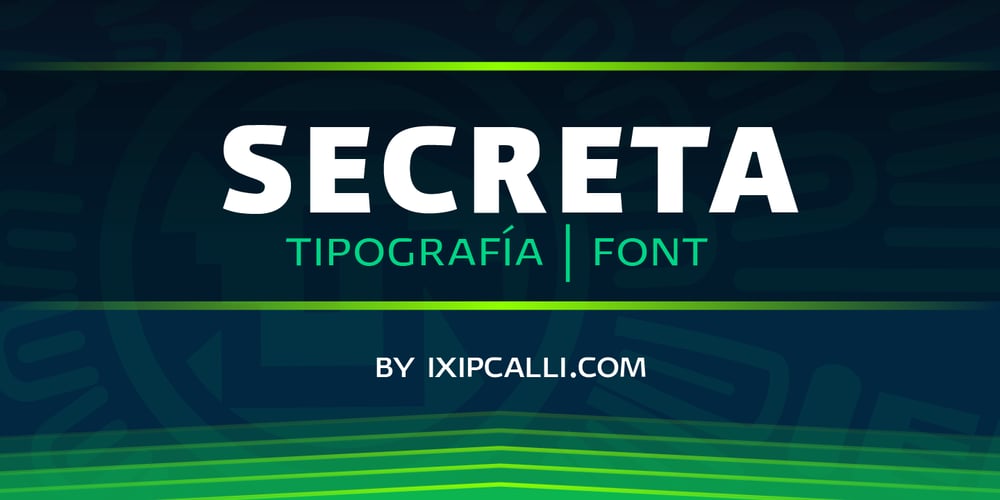
Secreta
Secreta font
Secreta Font Family was designed by Francisco Arellano and published by Ixipcalli. Secreta contains 4 styles and family package options. Secreta is a modern typeface with a geometric touch using “CAP” modes. It comes in 4 weights: Light Regular, Bold and Extended Bold.Each weight includes extended language support. Perfectly suitable for graphic design and any display use for web design, signage, corporate and editorial.